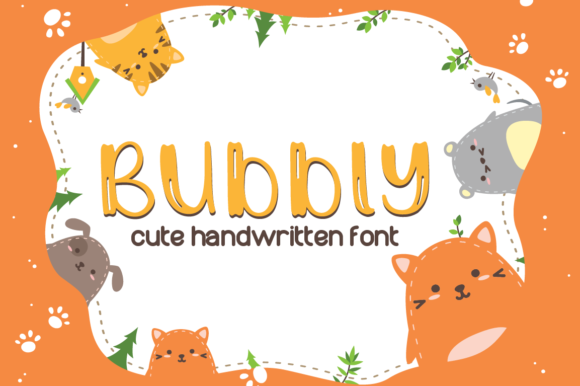
Have you ever been brainstorming a new project and suddenly, the perfect font pops into your head? For designers, that ‘aha’ moment is what makes all the difference. It’s the spark that sets your creativity ablaze and takes your design from good to great. For me, that moment came when I stumbled upon the Bubbly Cute Font.
With its playful and friendly vibe, this display font is perfect for bringing a smile to your audience’s face. Whether you’re working on a cartoon-related design, a children’s game, or just a creation that requires a lovely touch, the Bubbly Cute Font will be an amazing choice. Its value lies in its ability to add a touch of whimsy to your designs, making it a must-have for any designer looking to add some personality to their work.
Bubbly Cute Font Key Features
- Font Style: A playful, childlike font with rounded edges and bubbly shapes, perfect for adding a whimsical touch to designs.
- Unique Characteristics: Each letter has a unique, hand-drawn feel, with subtle variations in shape and size to create a natural, handwritten look.
Bubbly Cute Font Review
I’ve been experimenting with the Bubbly Cute Font, and here’s my honest take.
- Unique and playful aesthetic: This font has a distinctive look that’s sure to grab attention.
- Perfect for creative projects: Whether it’s a children’s book, a greeting card, or a social media post, Bubbly Cute Font shines in creative contexts.
- Easily readable: Despite its playful nature, the font remains legible and easy to read, even at smaller sizes.
- Limited versatility: While great for creative projects, Bubbly Cute Font might not be the best choice for more formal or professional contexts.
- Not ideal for large blocks of text: Due to its playful nature, this font can become overwhelming when used extensively.
Bubbly Cute Font is a great choice when you want to add some whimsy and personality to your design. While it may not be suitable for every project, its unique aesthetic and playful feel make it a great addition to any designer’s toolkit. Just be mindful of its limitations and use it thoughtfully to get the best results.
Bubbly Cute Font is ideal for:
- Children’s book covers and illustrations.
- Wedding invitations and party decorations.
- Food and drink branding.
- Any design project that requires a playful and whimsical touch.